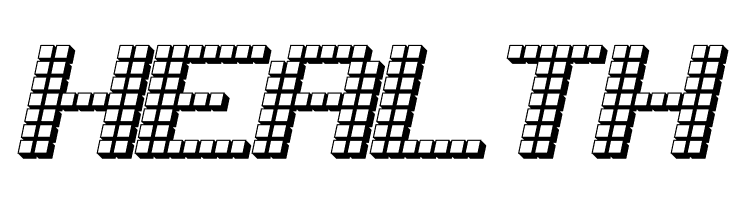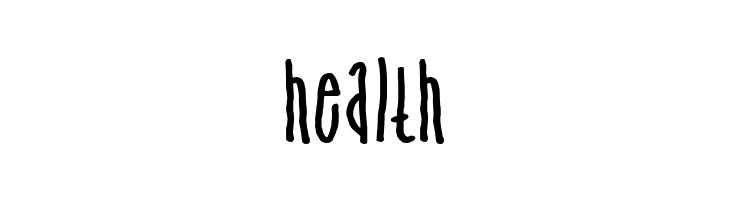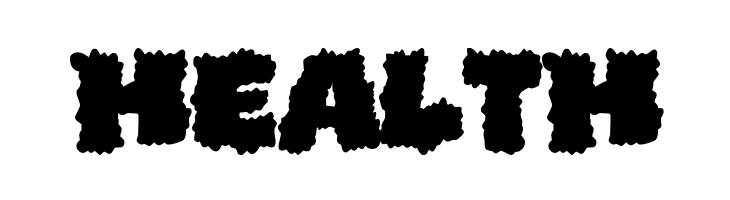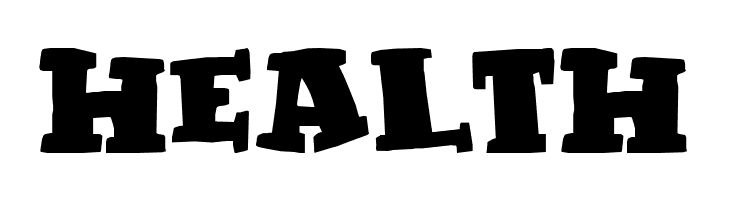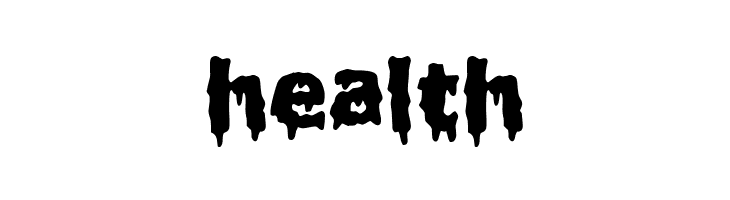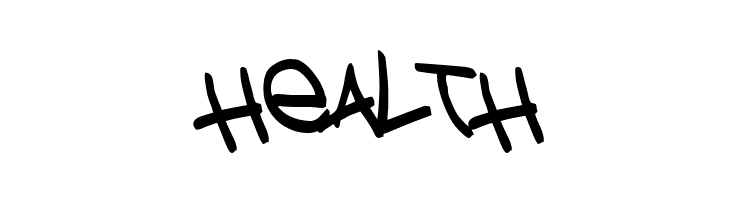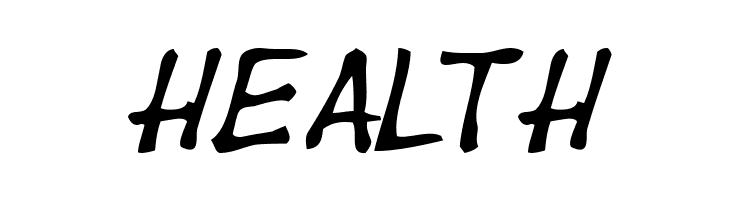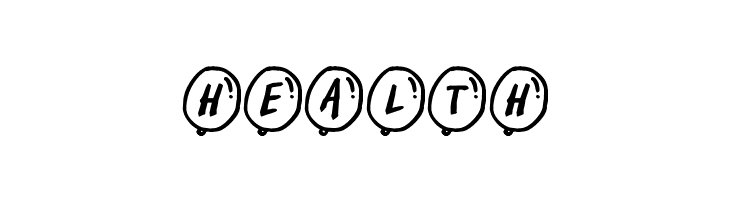
A decorative dot matrix font with a digital, pixelated style.
A quirky, hand-drawn font with elongated, irregular strokes.
A bold, playful font with a fluffy, cloud-like appearance.
A bold, playful font with exaggerated serifs and a whimsical style.
A bold, liquid-inspired font with a dynamic and playful design.
A bold, graffiti-inspired font with a dynamic, hand-drawn style.
A bold, brush-style font with an energetic and handcrafted appearance.
A playful, casual handwritten font with an informal, friendly style.
A bold, dynamic handwritten font with lively, irregular strokes.
A playful, balloon-themed font with a hand-drawn, festive style.